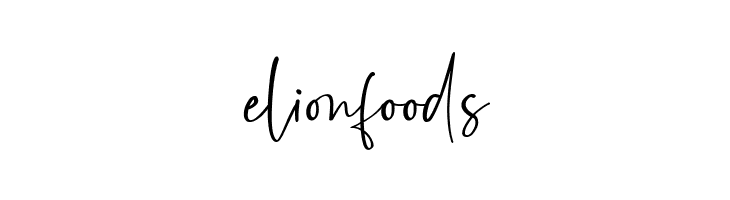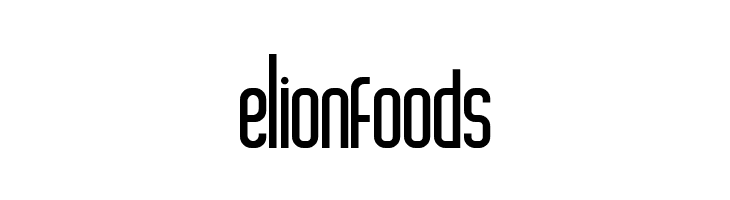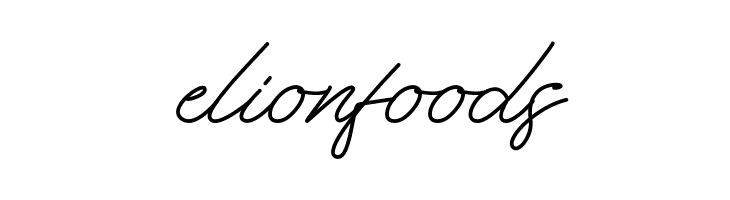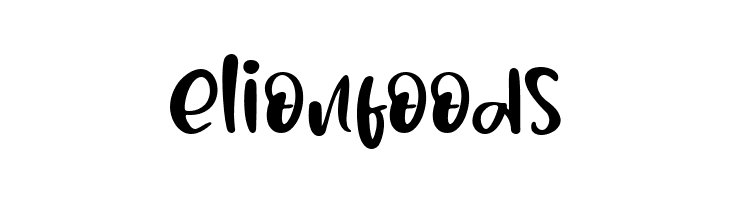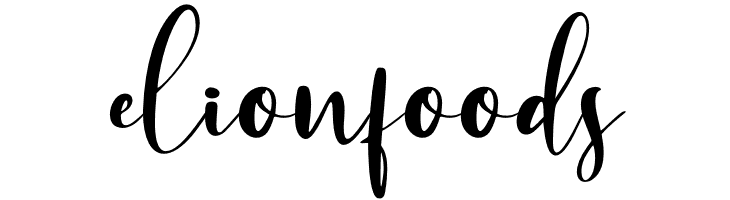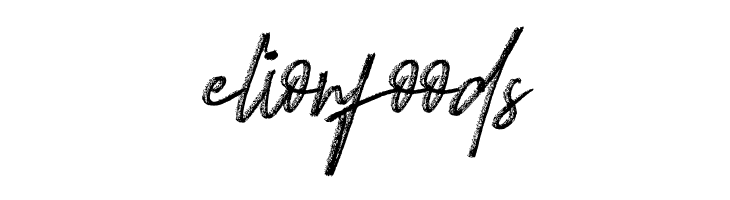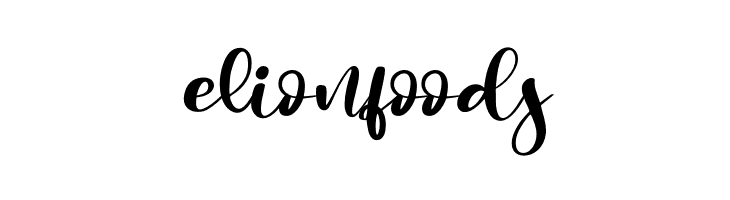
A playful and elegant handwritten font with fluid strokes and a modern feel.
A tall, narrow, and geometric font with a modern and sleek appearance.
A fluid and elegant script font with smooth, flowing lines.
An elegant, flowing script font with bold, expressive strokes.
A playful and expressive handwritten font with tall, narrow letters and dynamic strokes.
A bold, playful script font with a handwritten style.
A lively, expressive handwritten font with dynamic strokes and elegant curves.
A bold, textured script font with a dynamic, hand-drawn style.
A lively, flowing script font with elegant cursive letterforms and dynamic contrast.
A bold, flowing script font with elegant, connected letters.